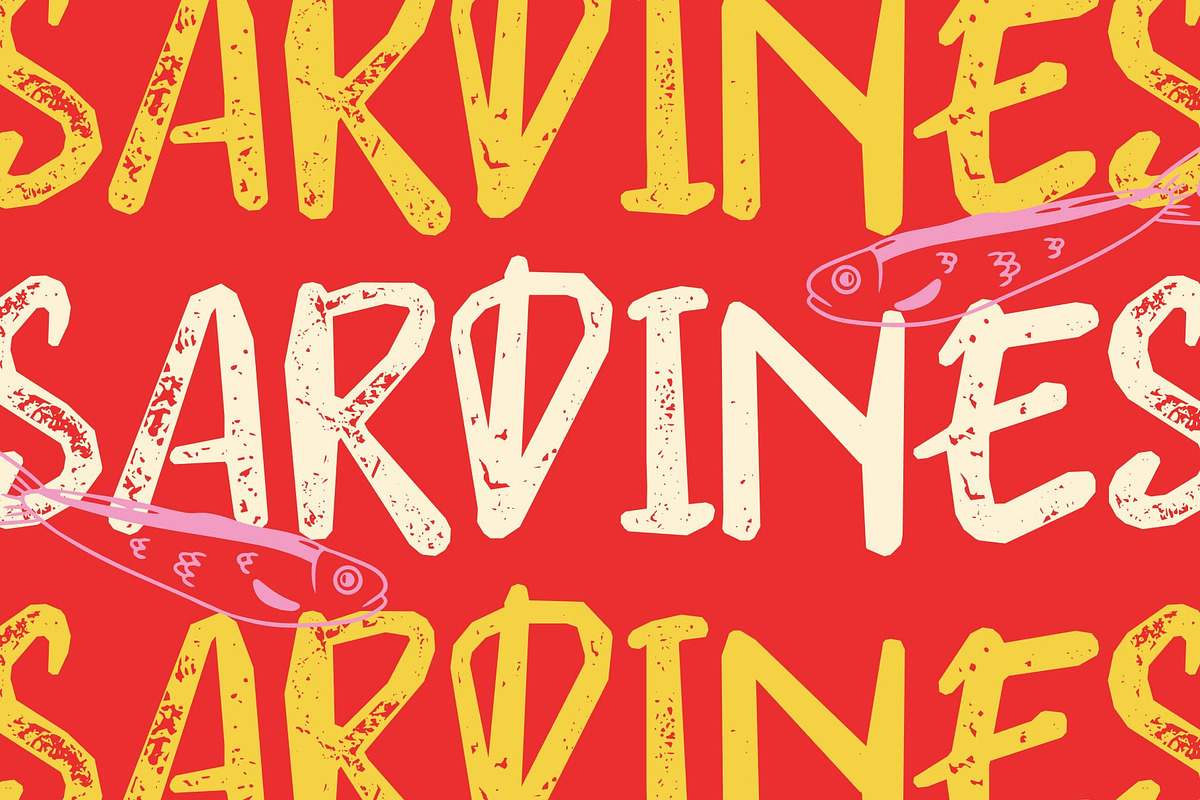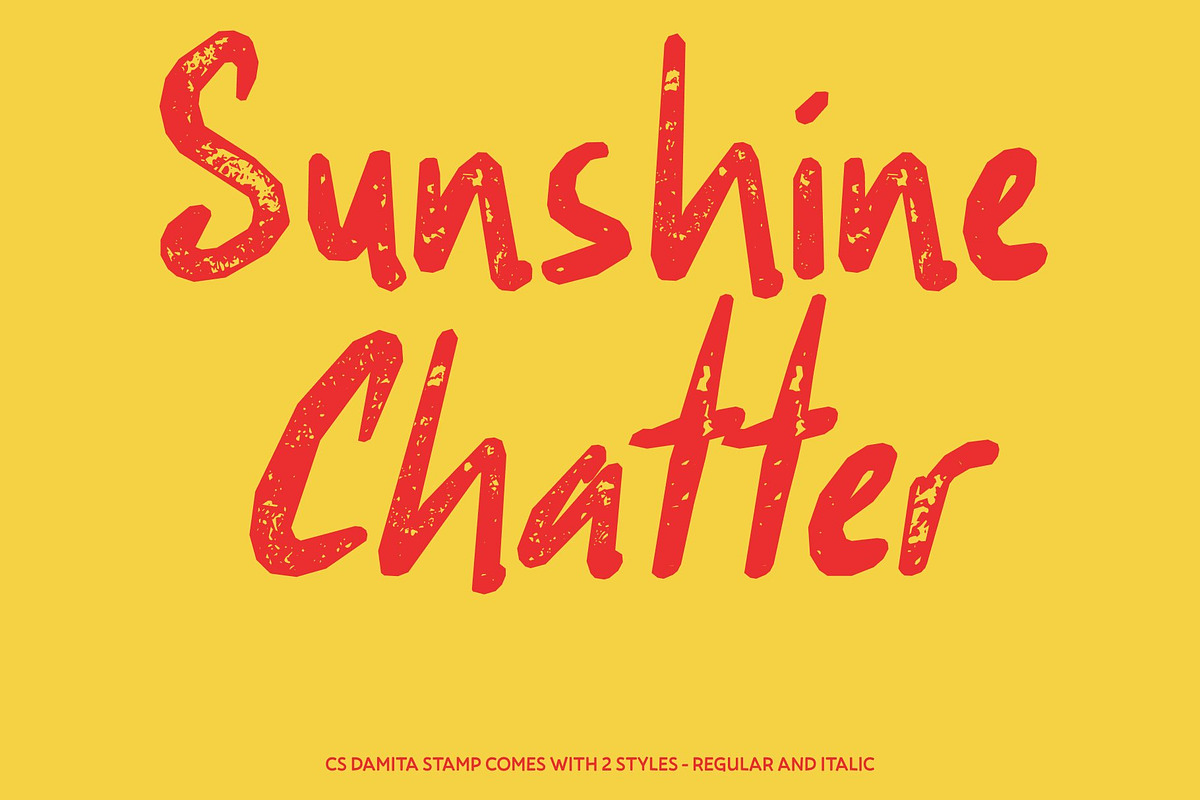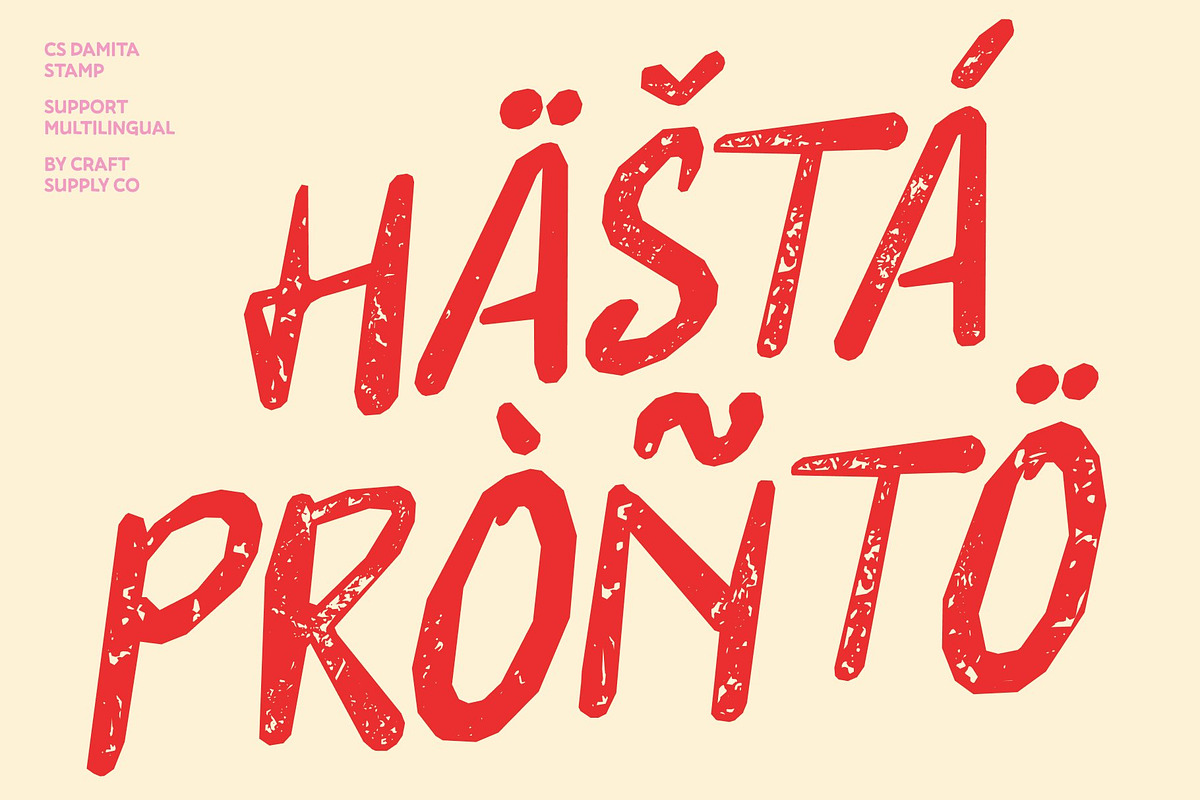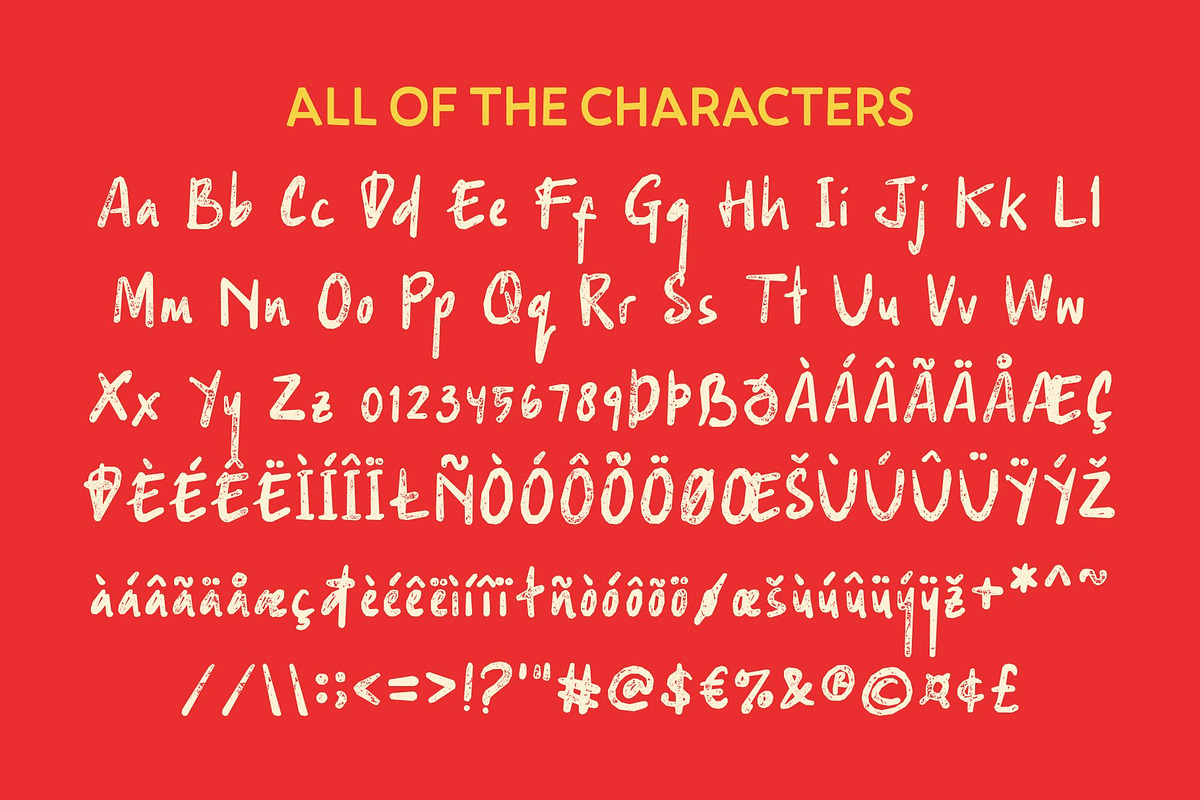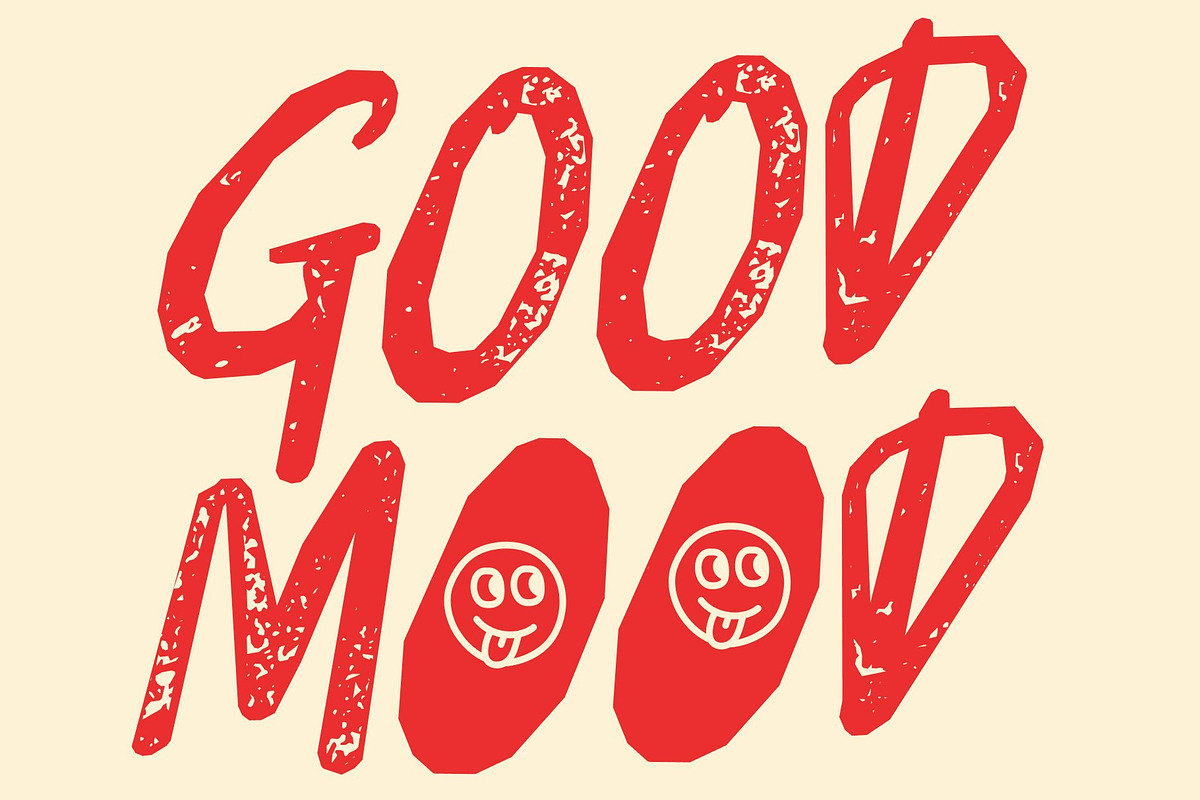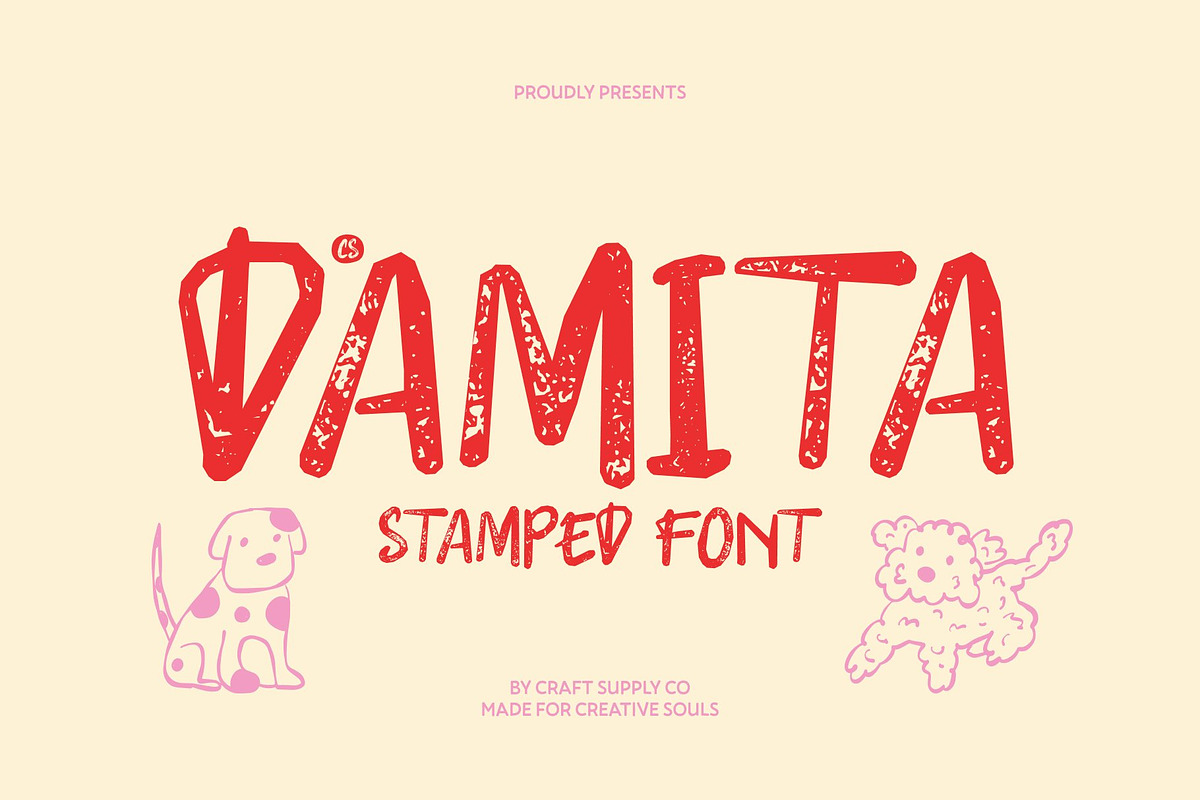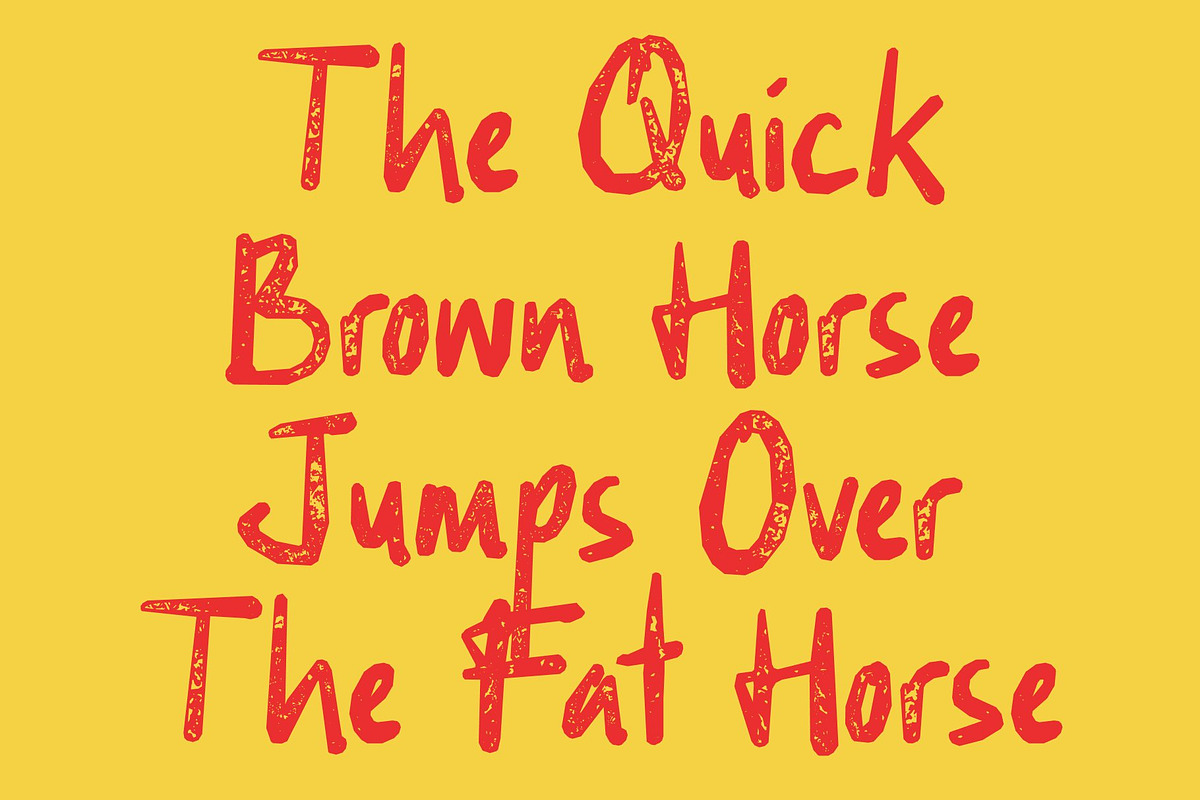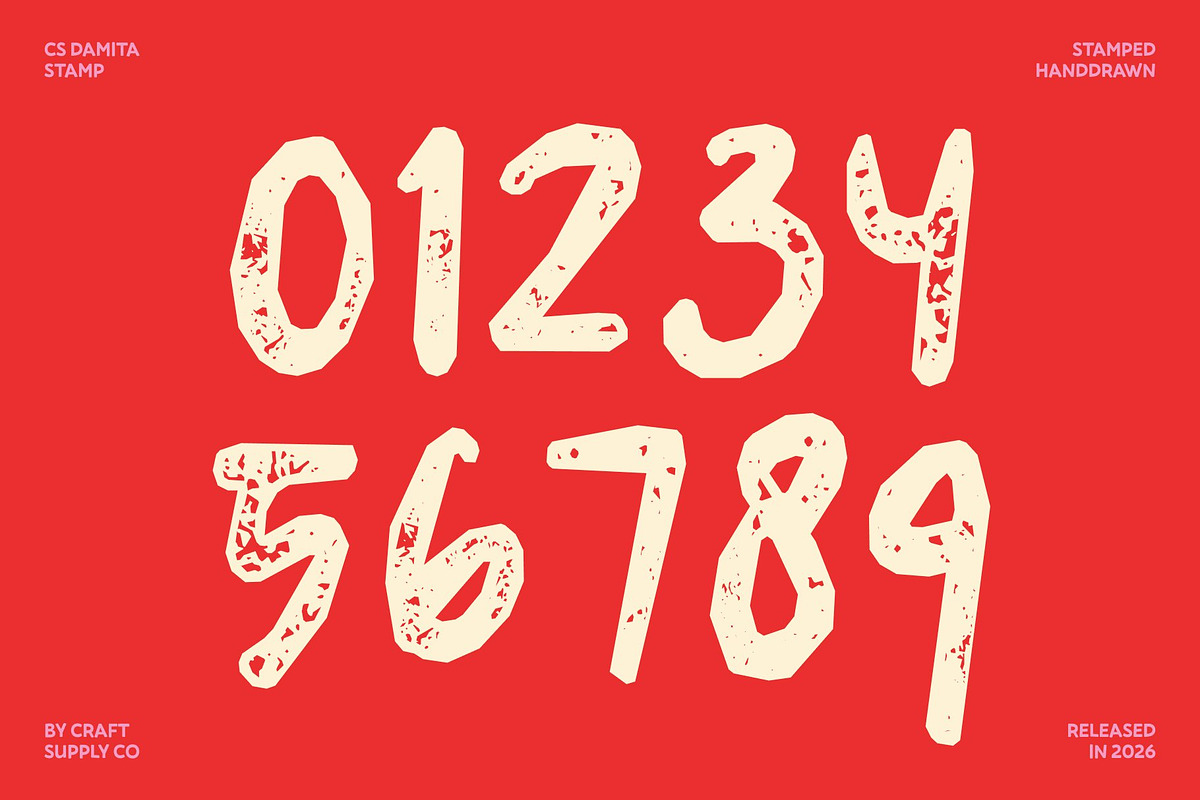
CS Damita Stamp
CS Damita Stamp – Soft Handwritten Display with Warm Authenticity
Natural Pen Strokes with Expressive Warmth This is a handwritten display font designed to capture the soft, expressive beauty of real pen strokes. Its gentle curves and organic movement create a soothing handwritten feel that looks sincere and inviting. Each letter carries a touch of natural charm, making the font perfect for designers who want to communicate authenticity, warmth, and personal connection through their typography.
Soft Curves for a Friendly, Approachable Look The softness in this font’s construction gives it an approachable and heartfelt presence. Smooth strokes and subtle variations mimic genuine handwriting, creating a relaxed and effortless style. This gentle appearance enhances readability while maintaining a personal tone, making every design feel thoughtful and meaningful.
Expressive Flow with Vintage Stamp Texture Enhanced with a subtle stamp effect, this font gains a nostalgic personality and artistic texture. The lightly distressed details evoke the character of traditional ink impressions, adding depth, warmth, and a handcrafted vintage touch that feels timeless and authentic.
Perfect for Personal Branding, Quotes, and Casual Invitations Ideal for personal branding, quotes, and casual invitations, this font brings warmth and authenticity to a wide range of design projects. Use it for signature-style logos, heartfelt social media posts, friendly greeting cards, event materials, or journaling aesthetics.
CS Damita Stamp Regular
CS Damita Stamp Italic